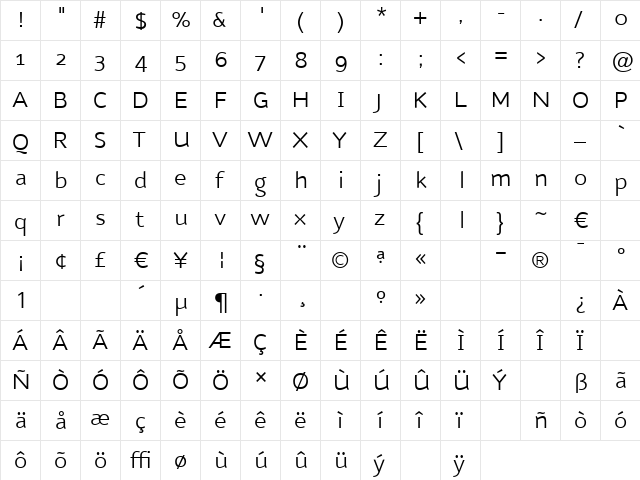
NubianLight Regular
Design Context for NubianLight Typeface
NubianLight takes a measured approach to typography — its balanced proportions and neutral character make it a reliable workhorse for both digital and print work. Its slender proportions lend an understated elegance to any composition.